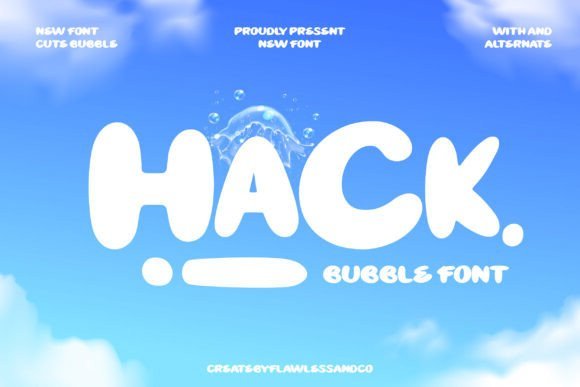
The Perfect Bubble of Creativity: Introducing the Hackbubble Font
Have you ever been brainstorming a new project, and suddenly a spark of inspiration hits you? That’s exactly what happened to many designers when they laid eyes on the Hackbubble Font – a playful bubble display font that’s bursting with personality.
This charming font is all about radiating a fun, modern, and friendly vibe, making it perfect for creative projects that want to stand out while staying approachable. With its cheerful curves and balanced proportions, the Hackbubble Font is ideal for branding, product packaging, or social media designs.
For designers, the Hackbubble Font offers a valuable asset – a unique visual identity that can elevate their work and make it truly memorable. By incorporating this font into their designs, creatives can add a touch of whimsy and playfulness that resonates with their audience.
Hackbubble Font Key Features
- Font Family: Hackbubble Font is a unique sans-serif font family designed for digital use. It includes multiple weights and styles, making it versatile for various applications.
- Character Set: The font includes a comprehensive character set, covering Latin, Cyrillic, and Greek alphabets, as well as various punctuation and symbol marks.
- Unique Characteristics: Hackbubble Font features a distinctive blend of geometric and organic shapes, resulting in a clean, modern aesthetic with a touch of personality.
- Size: The font family includes weights ranging from Extra Light (100) to Extra Bold (900), allowing designers to choose the perfect weight for their project.
Honest Designer Review: Hackbubble Font
I’ve had the chance to play around with the Hackbubble Font, and here’s my honest take on it.
The Hackbubble Font has a unique and edgy aesthetic that can add a touch of personality to digital projects. The font is well-suited for modern and futuristic designs, and it’s great for creating eye-catching headings and titles.
- Great for bold and eye-catching headlines
- Unique and modern aesthetic
- Works well in digital and screen-based designs
While the Hackbubble Font has its strengths, it’s not without its limitations. The font can be quite difficult to read in certain contexts, particularly in body text or when used for extended periods of time.
- Difficult to read in body text
- Not suitable for print or high-resolution designs
- Can be overwhelming in large blocks of text
The Hackbubble Font is a great choice for designers who want to add a touch of modernity and edginess to their projects. However, it’s essential to use it judiciously and in contexts where it will shine. With a clear understanding of its limitations, the Hackbubble Font can be a valuable addition to any designer’s toolkit.
Getting the Most Out of Hackbubble Font
For the best results, use Hackbubble Font in bold or italic styles to add emphasis and create visual interest. Experiment with different font sizes and colors to create a unique look. Use Hackbubble Font in combination with other fonts to create a dynamic and engaging design.
Use Hackbubble Font for:
- Emphasis and call-outs
- Design projects that require a unique and playful font
Avenir Next
Avenir Next is a geometric sans-serif font designed by Jean-François Porchez. It is a versatile font that works well in both digital and print materials, including books, magazines, and websites. Avenir Next has a more formal and elegant feel compared to Hackbubble Font, making it suitable for use in professional and corporate materials.